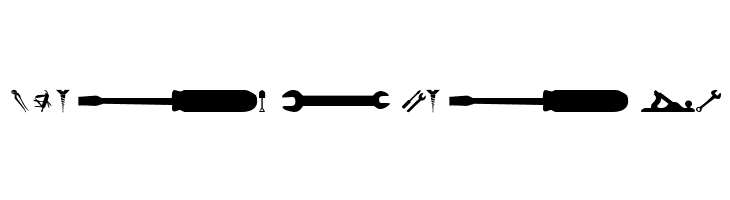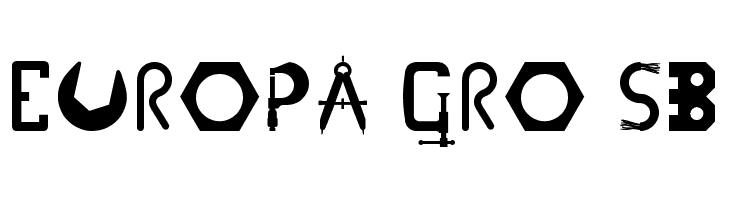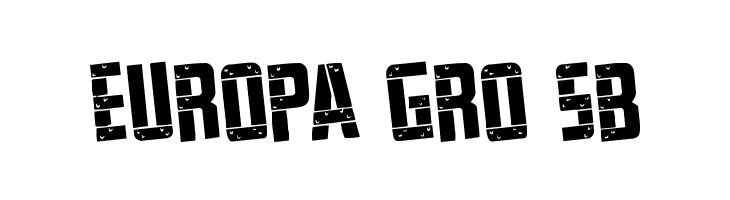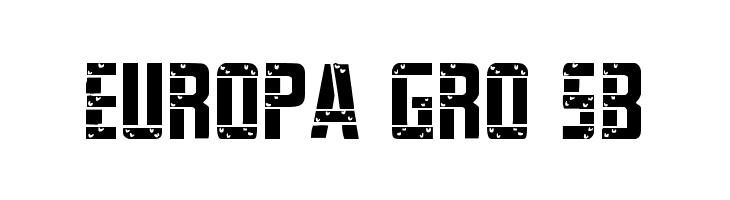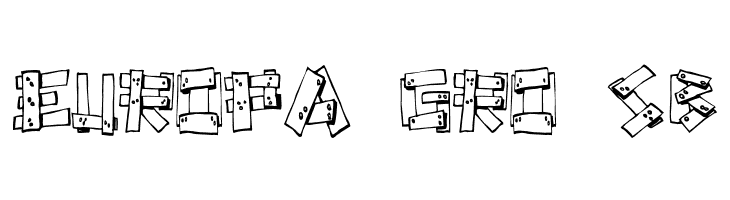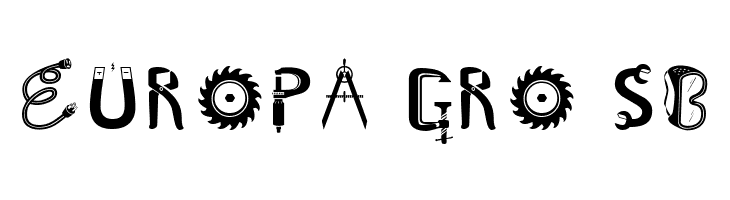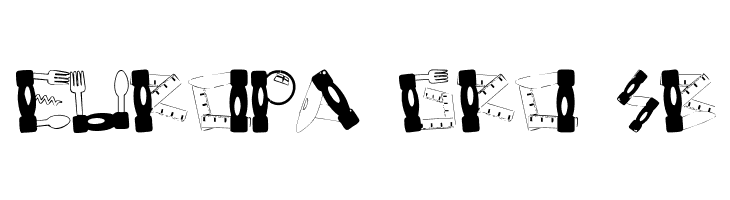
A decorative font with a mechanical and industrial theme, featuring tool-inspired elements.
A decorative font featuring hand tools as characters, perfect for DIY-themed projects.
A bold, decorative font with an industrial, plank-like design.
A bold, industrial font with embedded bolt patterns for a rugged look.
A playful, hand-drawn font resembling wooden planks, ideal for creative projects.